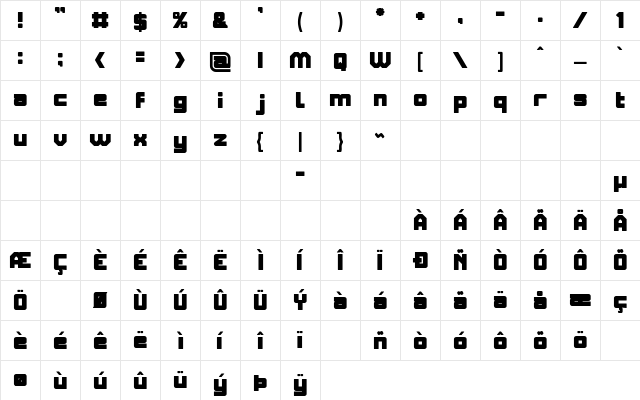
ELITE MIND Bold
Design Context for ELITE MIND Typeface
ELITE MIND offers clean, dependable letterforms without strong stylistic allegiance, making it a practical choice for designers who need flexibility. The heavy weight commands attention and anchors typographic hierarchies.